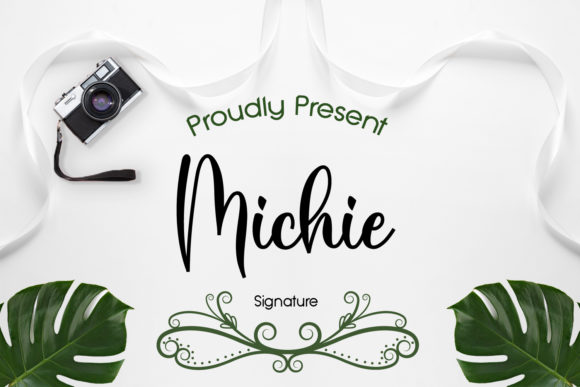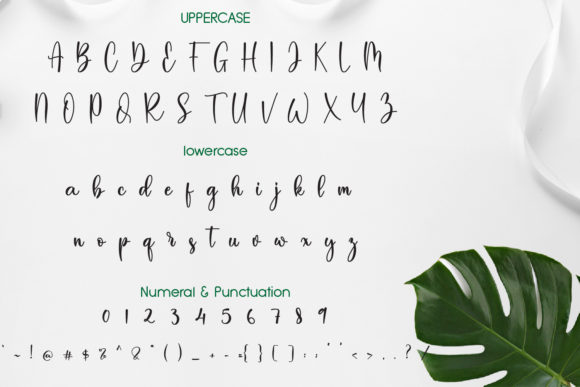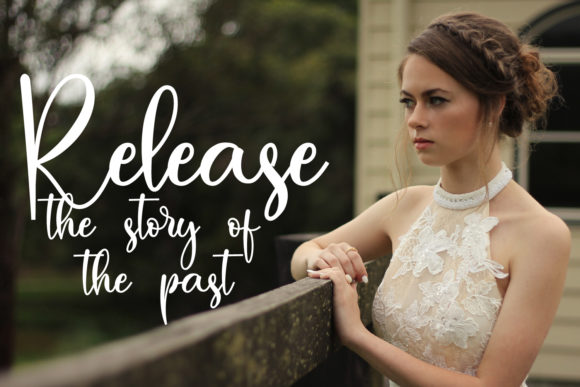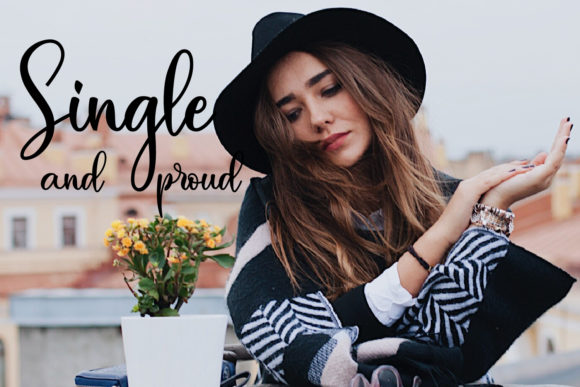
Michie Font
Michie is a sweet and cursive handwritten font. This gentle font will look gorgeous on a variety of design ideas. It will add a joyful and romantic touch to each of your projects! This font is PUA encoded which means you can access all of the glyphs and swashes with ease!